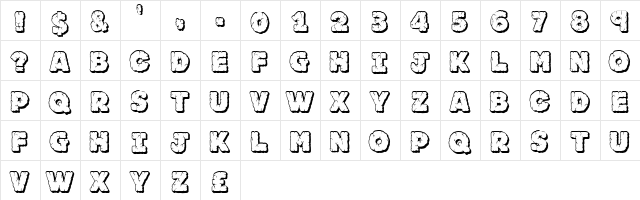
JFRockOutcrop Regular
Design Context for JFRockOutcrop Typeface
JFRockOutcrop is a composed and adaptable typeface that performs quietly and consistently across a wide range of design contexts.